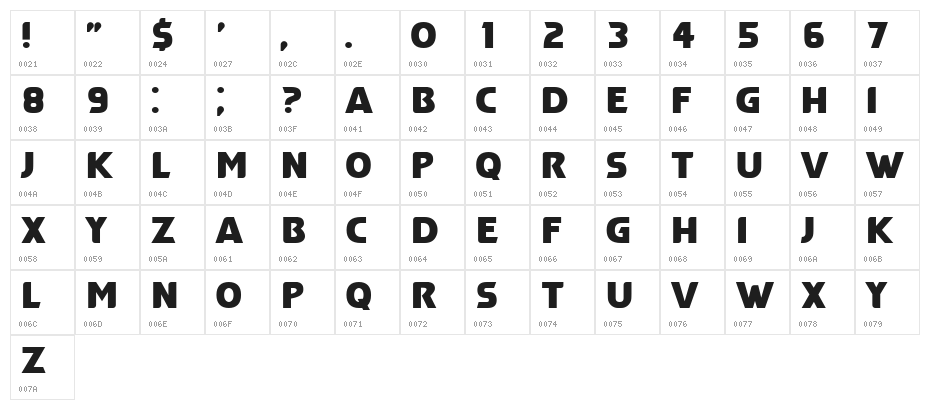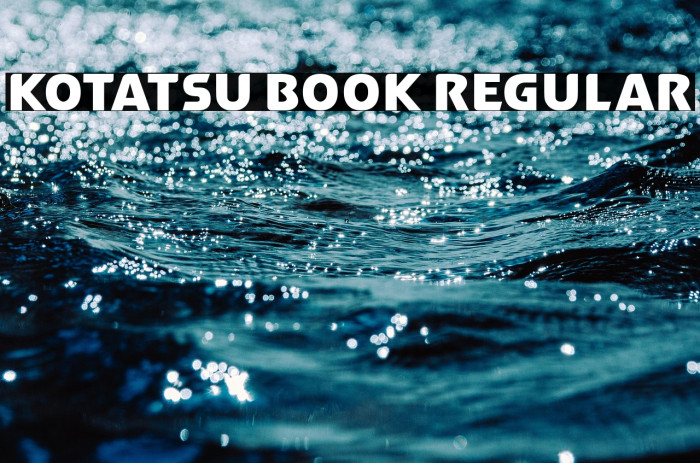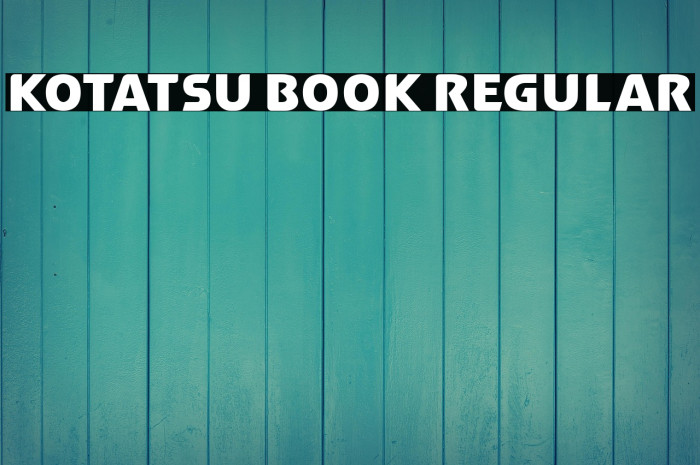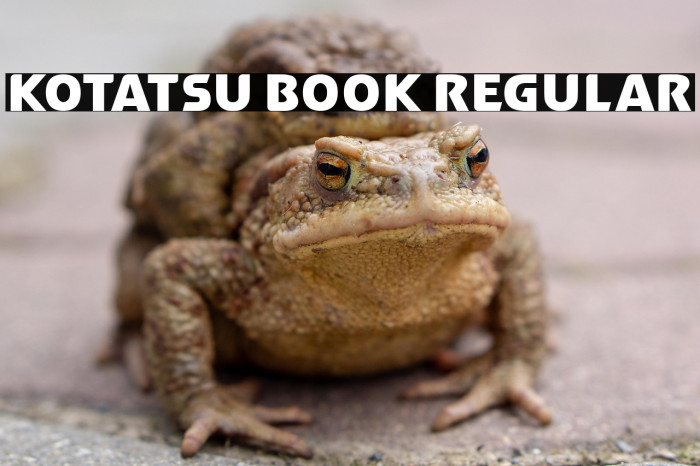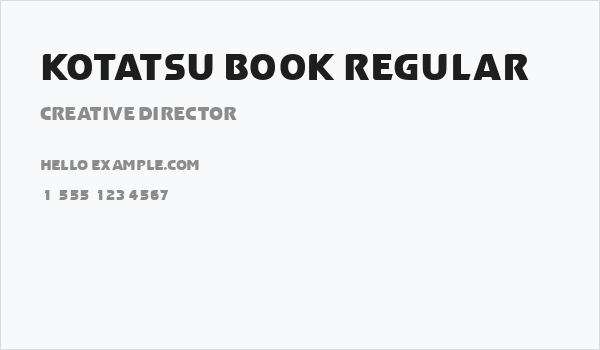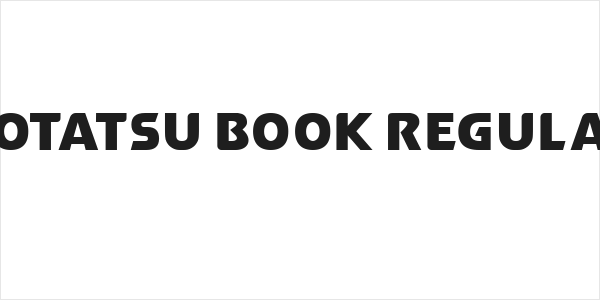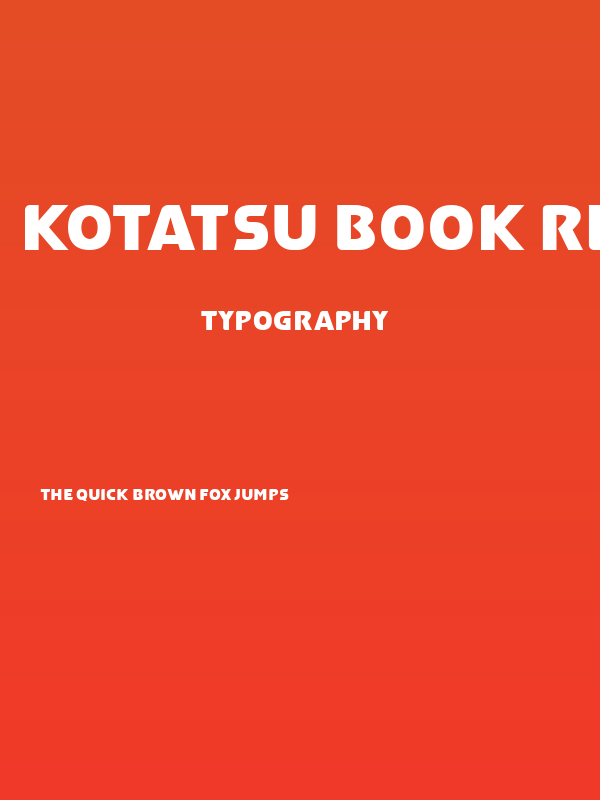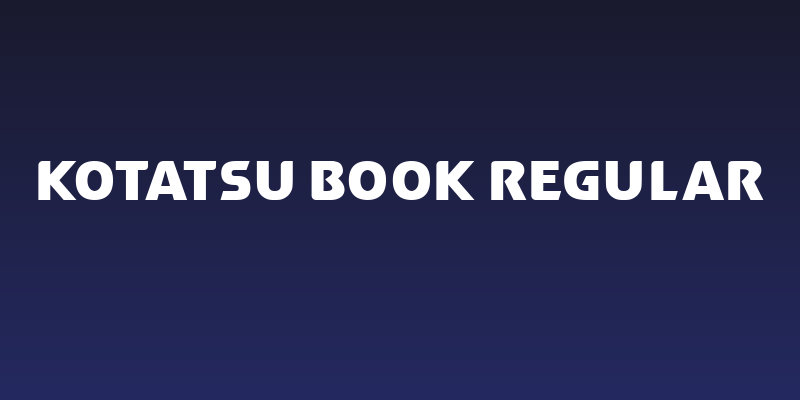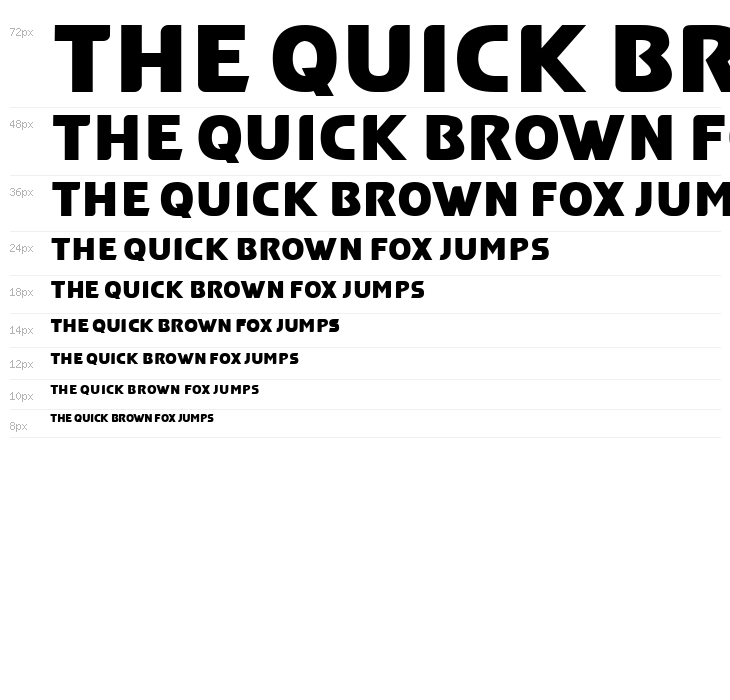
Kotatsu Book Regular Font
Kotatsu Book Regular Description
This font features bold, geometric letterforms with a strong presence. The characters are uniformly thick, giving a robust and modern appearance. The uppercase letters are particularly striking, with clean lines and a slightly condensed form. The numerals are equally bold, maintaining the geometric style. The special characters are well-integrated, complementing the overall design. This font is highly legible, making it suitable for various applications where clarity and impact are essential.